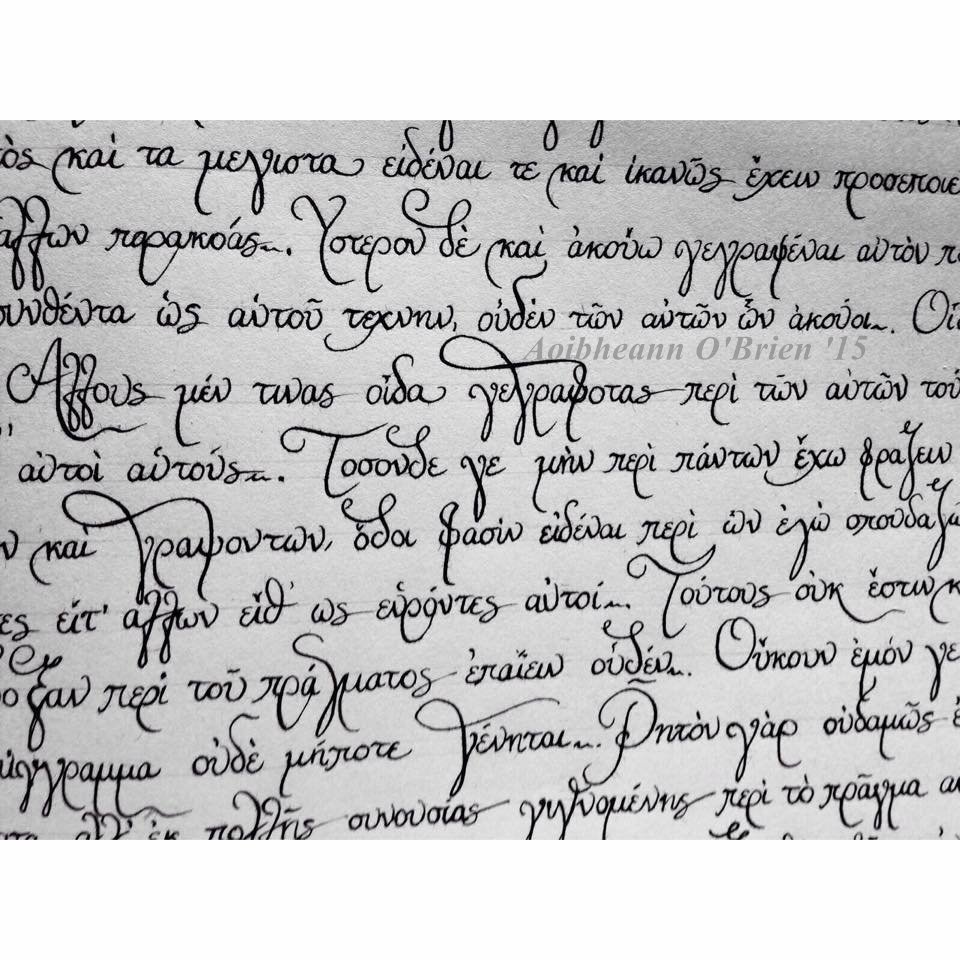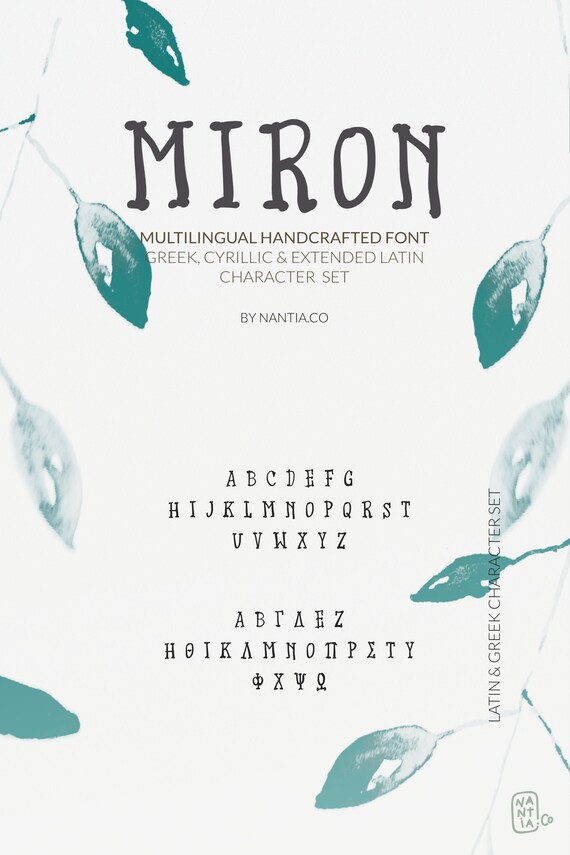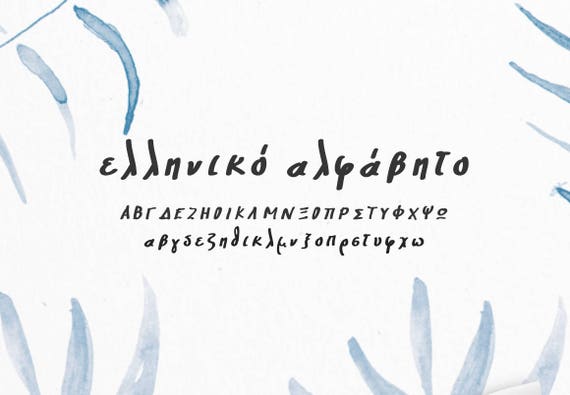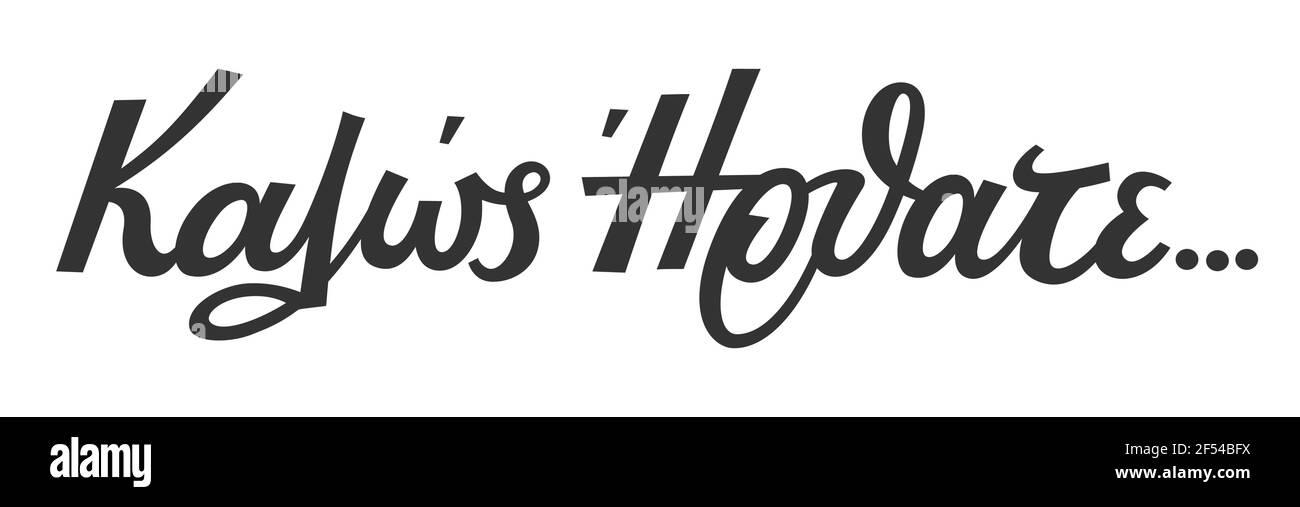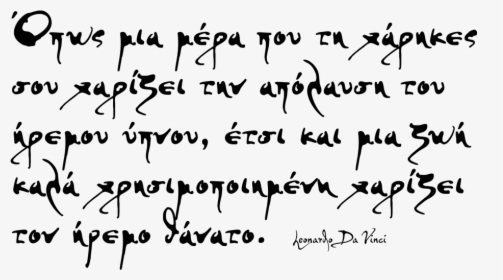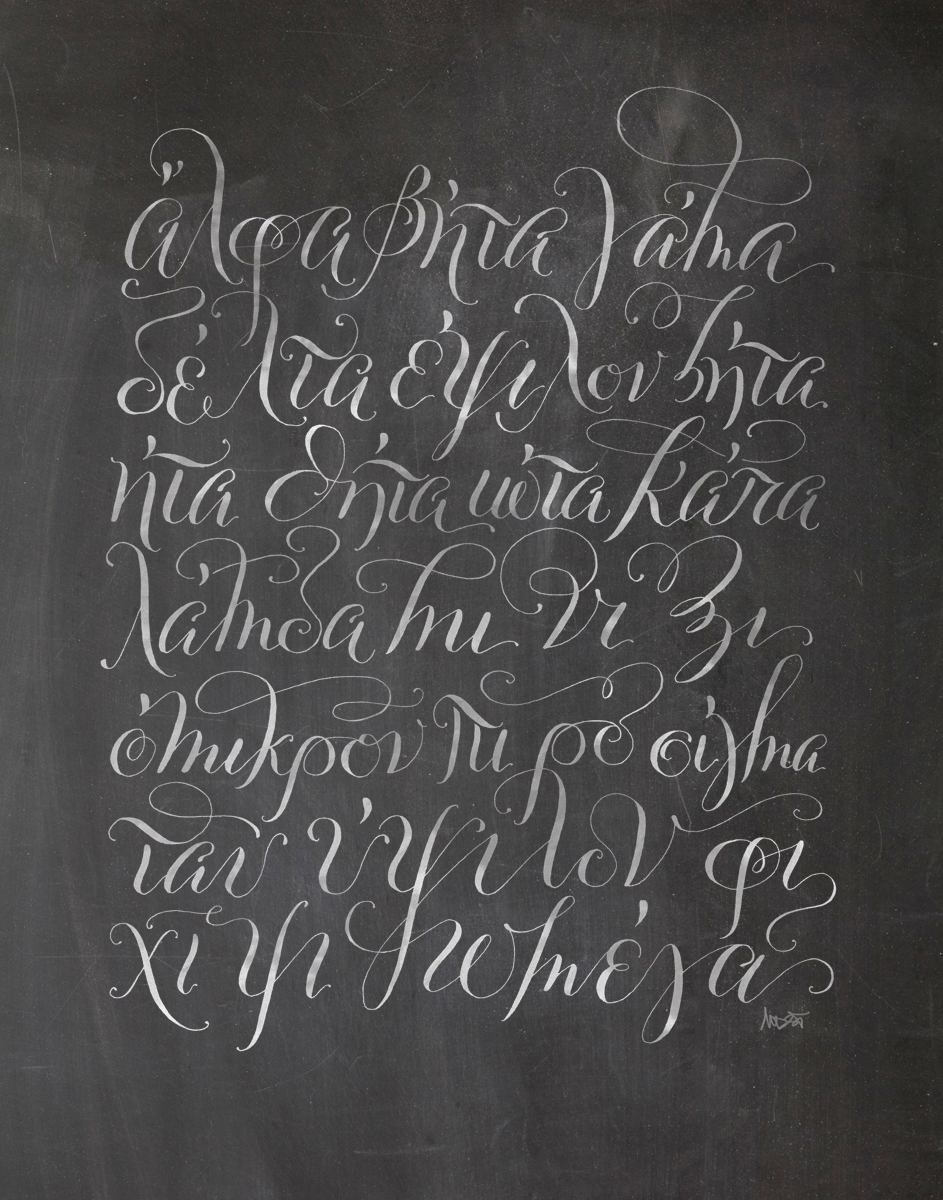
It is the second font in VKF typeface with a great honor in our Greek movie memories by Vasilis Kanaris. It usually involves a nibbed pen or brush.
The height of calligraphy was reached in the middle age where monks developed the narrow writing style called gothic allowing more words to fit on a single line as paper was expensive at the time.
Handwriting greek calligraphy fonts. New Lightroom Presets. Its for this reason that calligraphy is often referred to as the art of beautiful handwriting. Calligraphy is an artistic writing style where the pressure is varied to create thick and thin lines all in a single stroke.
Calligraphy fonts are most typically identified as those which are similar to classic or elegant handriting and having elaborate curls and swirls. Diploma projectThis font was designed for the Fun category of the packaged ice cream of PARADICE so. Images gallery of greek handwriting.
According to the designer the font is an ode to the late 19 th century American calligrapher Louis Madarasz known as the most skillful penman the world has ever known. An interesting fact is that the word calligraphy is actually derived from an ancient Greek word meaning beautiful writing. Free Athena Greek Handwritten Font is a modern-traditional greek font inspired by the old 1950-1970 Greek movie theater.
The Calligraphy Script Handwritten font has been downloaded 4934 times. Download 2330 Calligraphy Fonts. Calligraphy is an ancient writing technique using flat edged pens to create artistic lettering using thick and thin lines depending on the direction of the stroke.
See more ideas about greek calligraphy lettering. VAG-HandWritten Font Free by VAGDesign Font Squirrel. The writing is readable but is usually extravagant and embellished with flourishes.
True Mama by Nantiaco. Calligraphy fonts are widely used in wedding event invitations original logo design religious art films TV etc. It include lowercase uppercase number punctuation symbols and supports Greek letters and English.